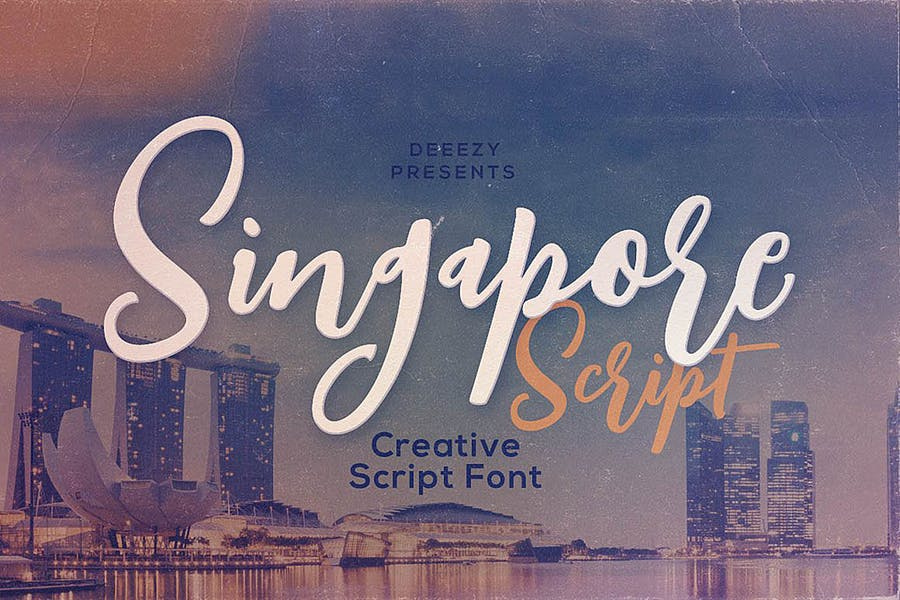
Singapore Script Font
Singapore Script Font is perfect for elegant wedding invitations, luxury brand identity, sophisticated packaging design, high-end restaurant menus, boutique hotel signage, premium cosmetics branding, fashion magazine layouts, exclusive event stationery, upscale jewelry packaging, fine dining establishments, luxury spa materials, and refined calligraphic compositions.
Singapore Script Font is exciting because it masterfully combines the fluid elegance of traditional script lettering with contemporary sophistication, creating graceful letterforms that flow like silk across the page while maintaining exceptional readability and luxurious appeal that instantly elevates any design to premium status.
The Singapore Script Font family includes refined variations: Regular, Bold, Light, Swash capitals, Decorative alternates, and Ornamental flourishes, offering designers a complete elegant script system to create sophisticated typographic compositions that capture timeless grace and modern luxury.
The font's meticulously crafted letterforms showcase the fluid beauty of expert penmanship while incorporating modern design principles that ensure optimal performance across digital and print applications. Each character connects seamlessly with graceful ligatures, creating harmonious compositions that feel both timeless and thoroughly contemporary.
Singapore Script Font excels in creating distinguished brand experiences for businesses that represent sophistication, exclusivity, and refined taste. Its elegant presence transforms ordinary communications into extraordinary statements of luxury and quality, making it ideal for high-end hospitality, premium fashion, and exclusive service providers.
Creative professionals treasure how Singapore Script Font brings instant prestige to design projects without appearing overly ornate or pretentious. The font's balanced character and thoughtful design ensure it performs beautifully in both intimate applications and grand display settings, maintaining its sophisticated charm across all scales.
This remarkable typeface shines in applications where emotional connection and luxury positioning are essential. From exclusive boutiques to five-star resorts, Singapore Script Font creates lasting impressions that communicate excellence, refinement, and the highest standards of quality and service.